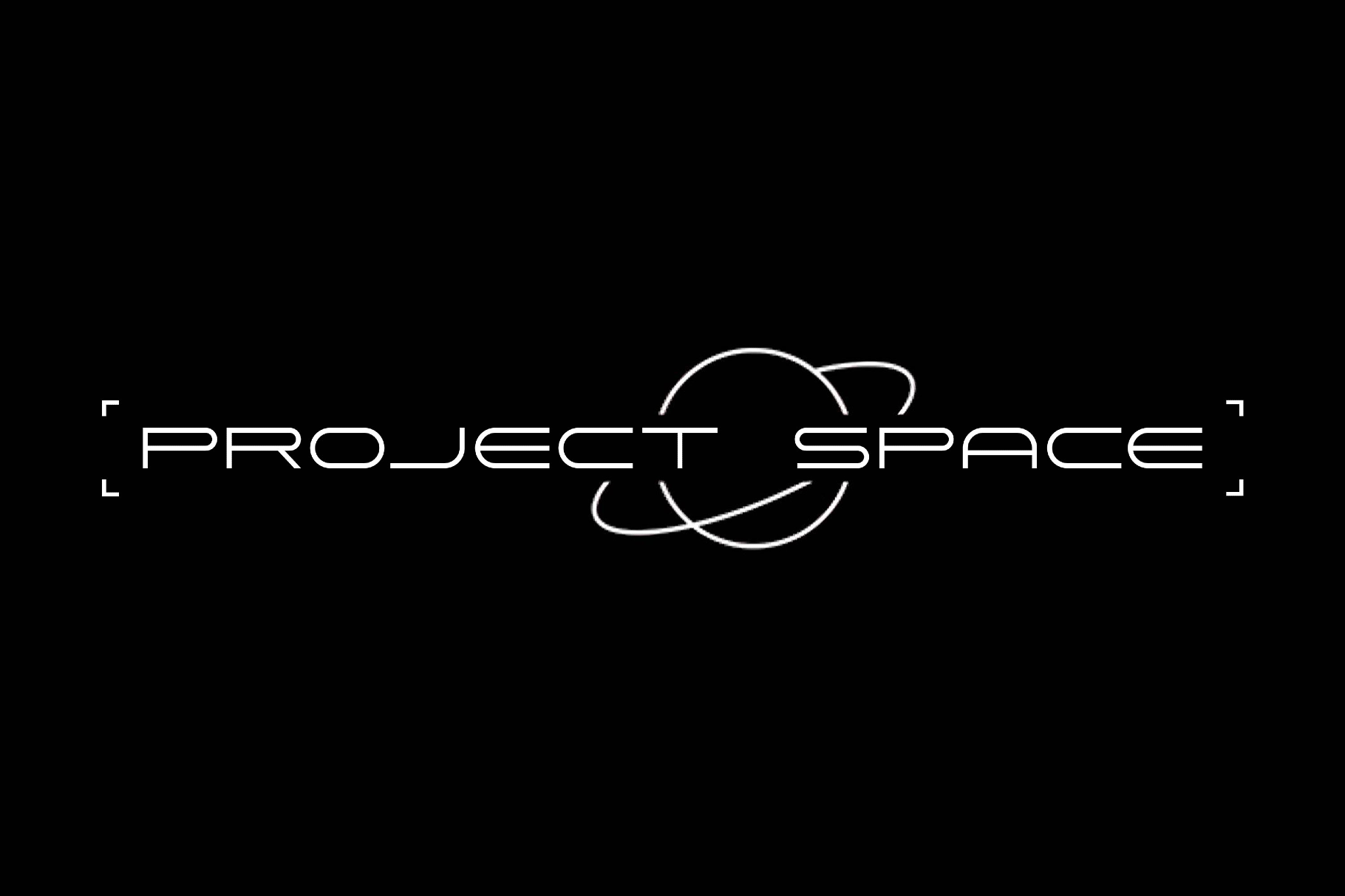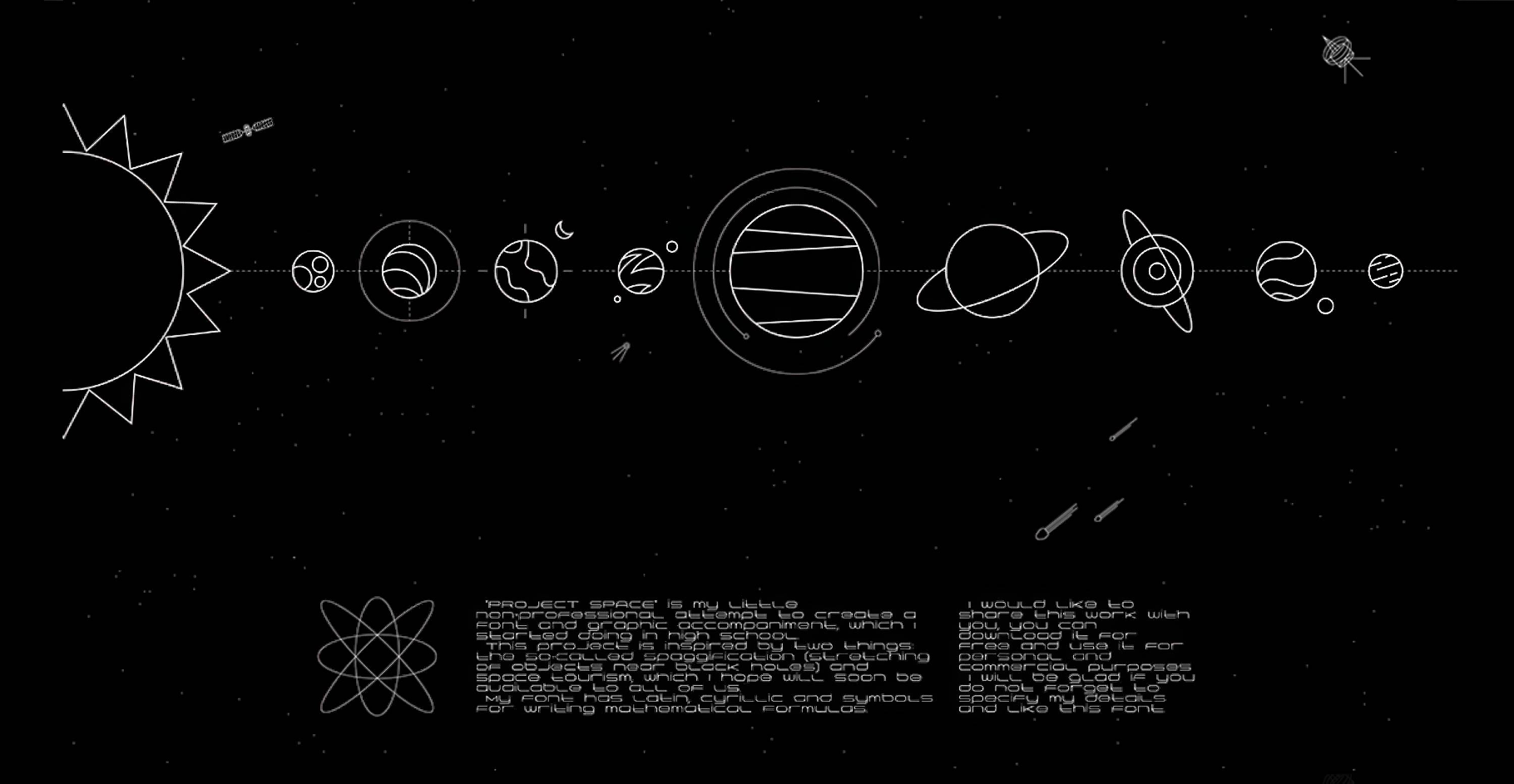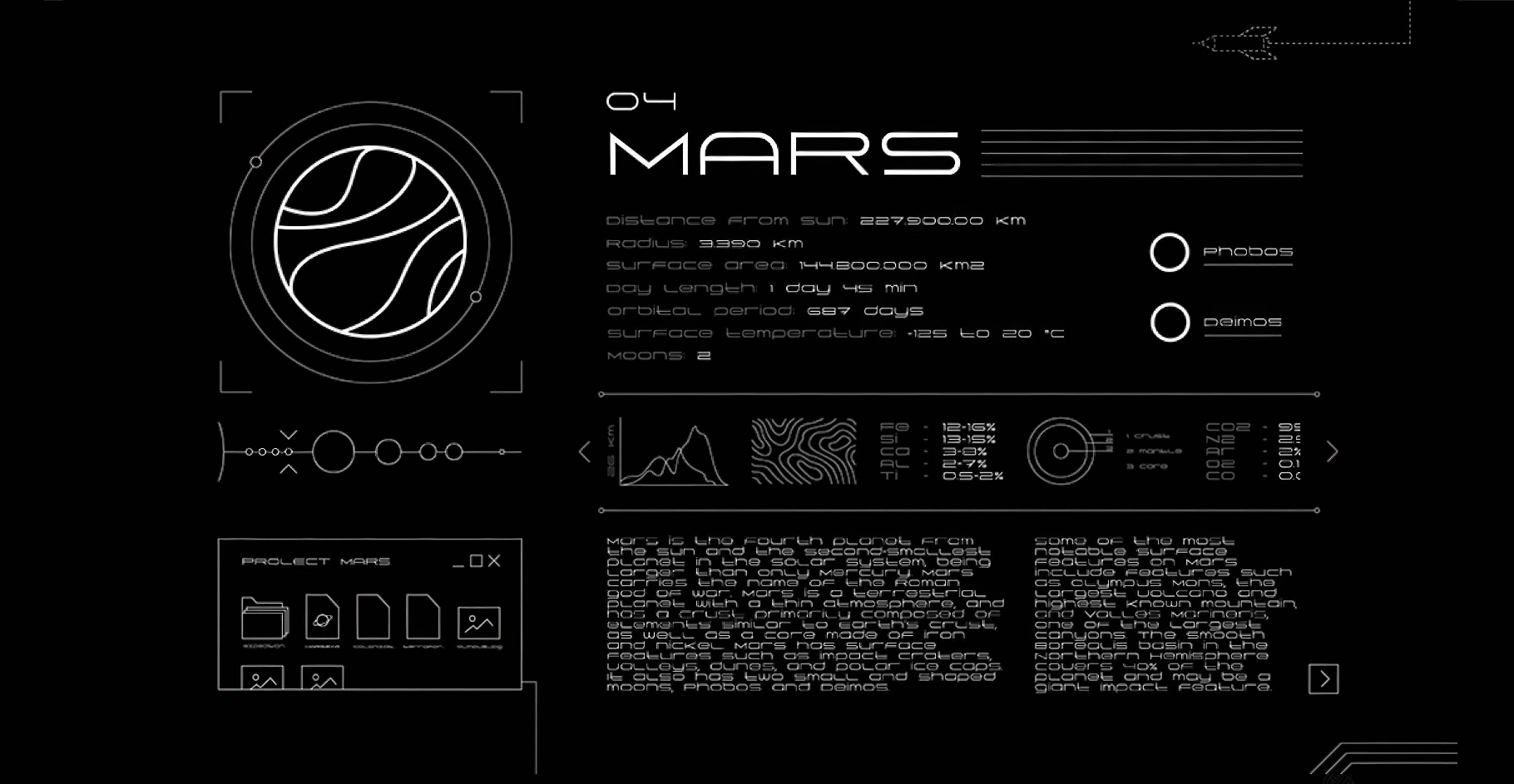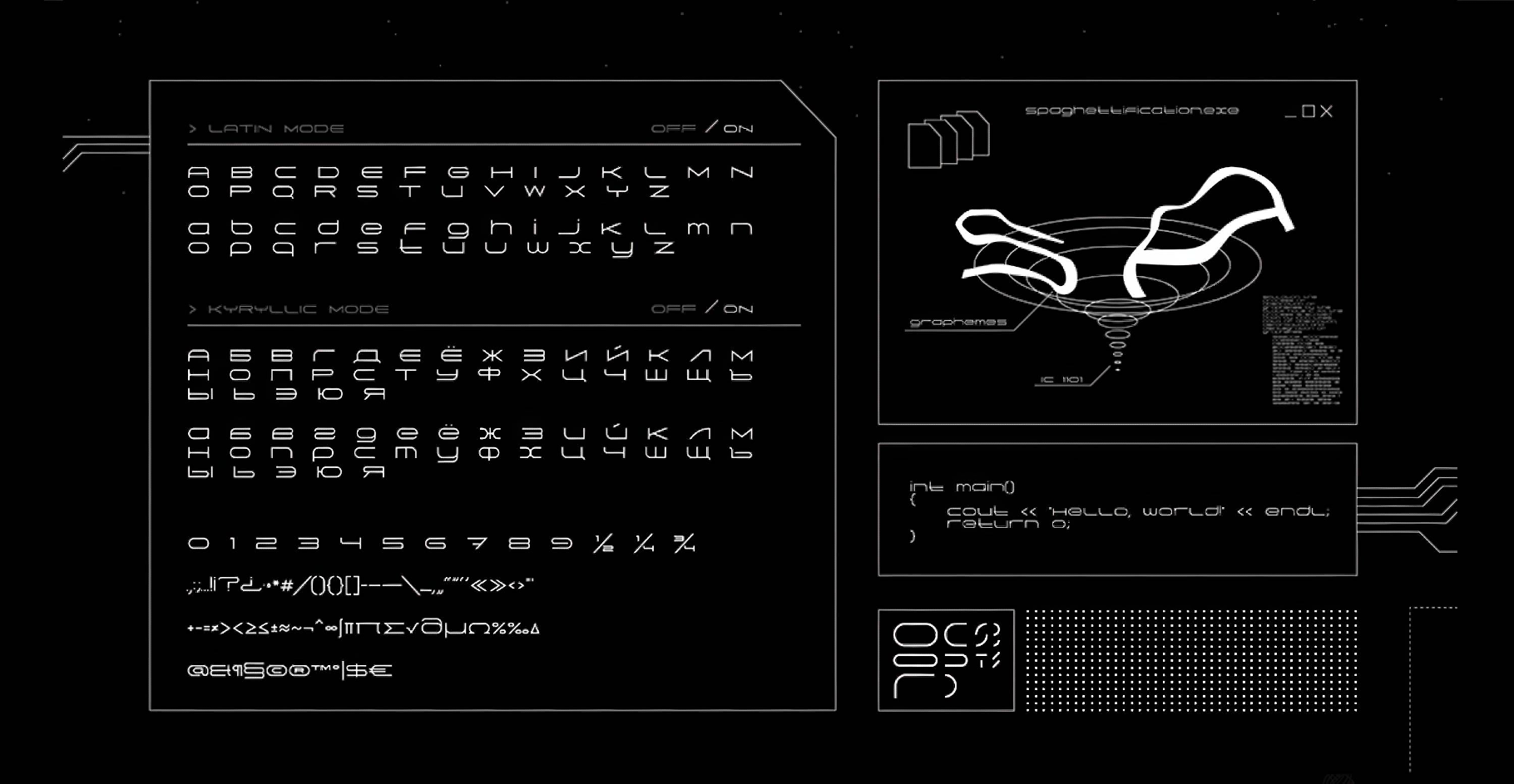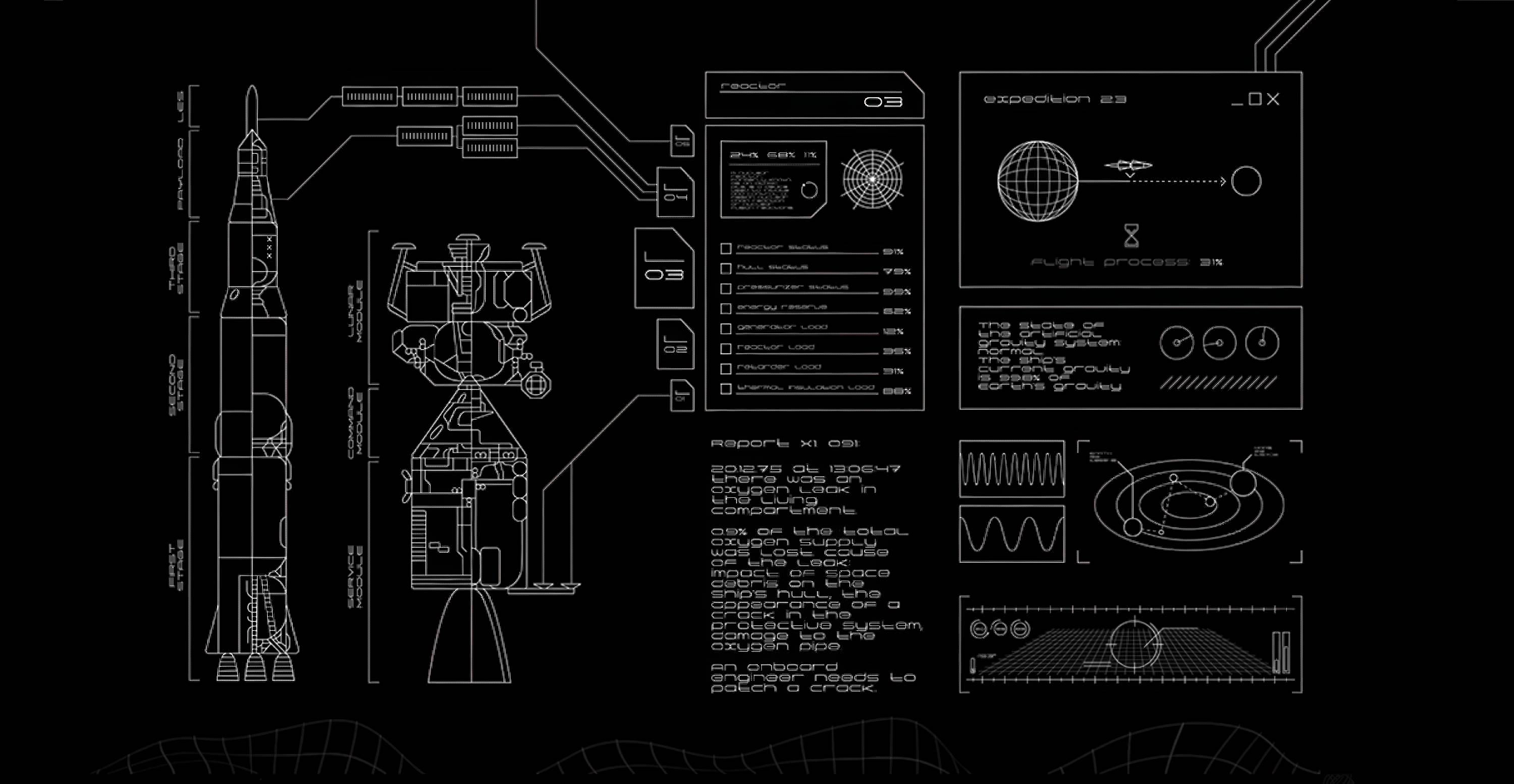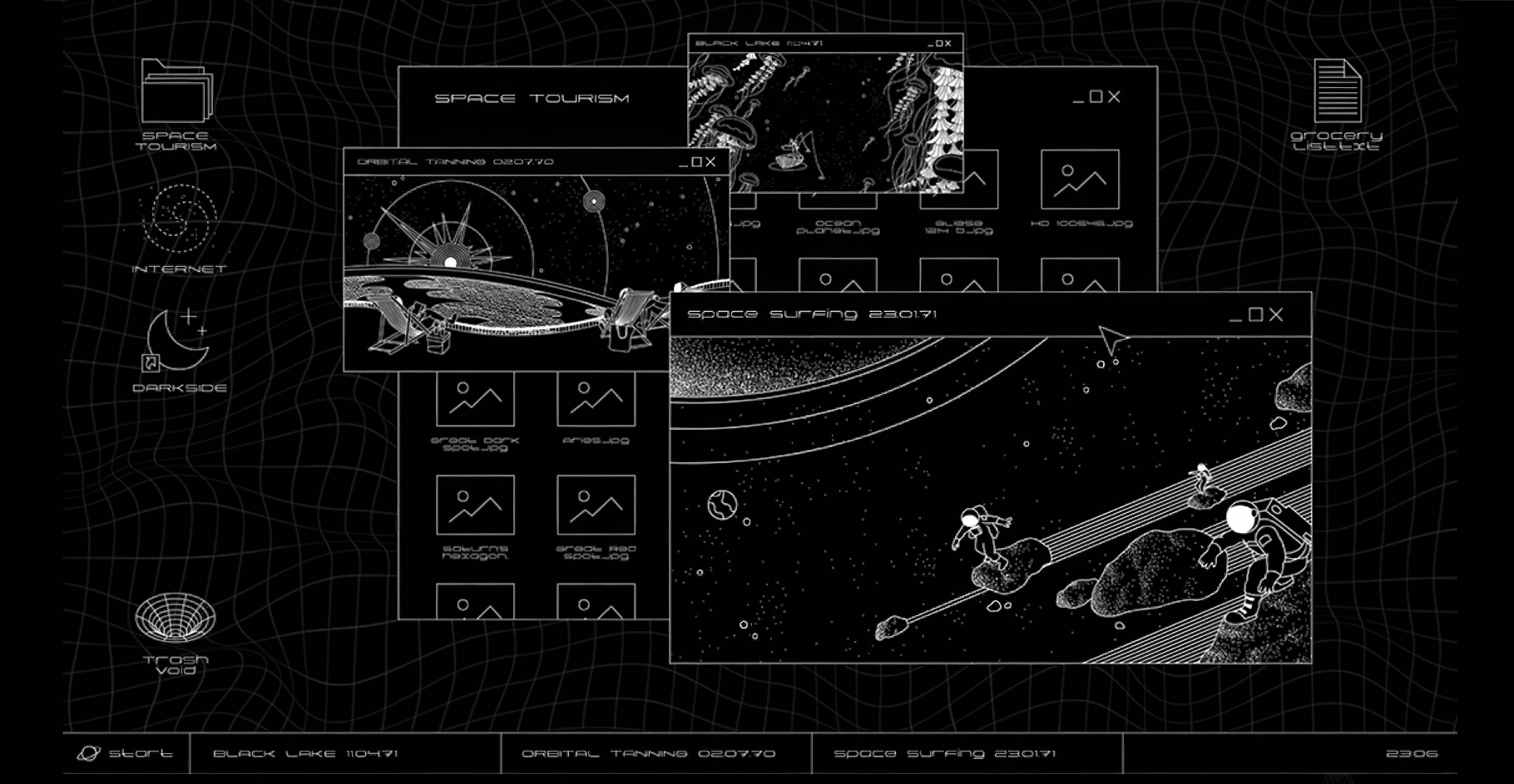
Project Space Font
Project Space, with its stretched geometric forms, immediately brings to mind orbital maps, aerospace insignias, observatory graphics, and old sci-fi book covers that promised elegant space travel with absolutely no mention of existential dread. The letters have a sleek, elongated rhythm that suggests movement, distance, and zero gravity.
It looks right at home in anything involving star charts and future terminals like poster titles, album covers, game screens, tech identities, editorial openers, exhibition graphics, motion frames, and concept presentations.
• uppercase and lowercase letters;
• numbers, punctuation, and symbols;
• multilingual support across basic Latin and Cyrillic scripts.